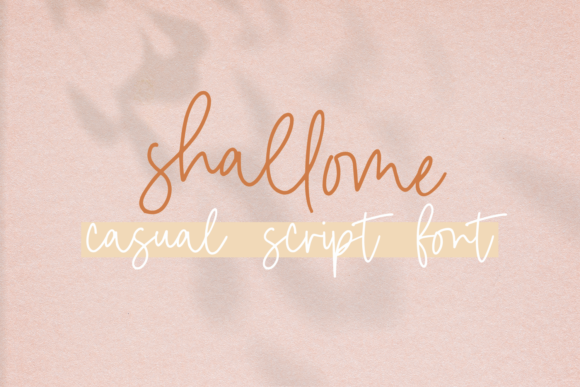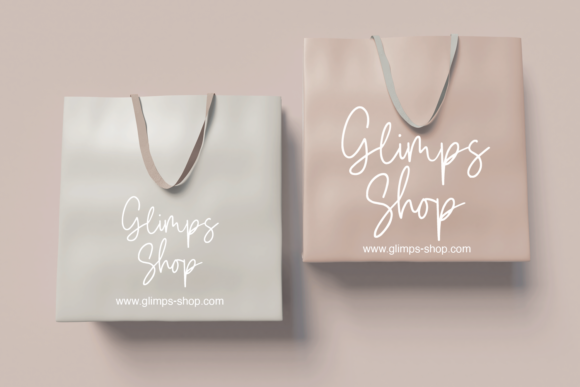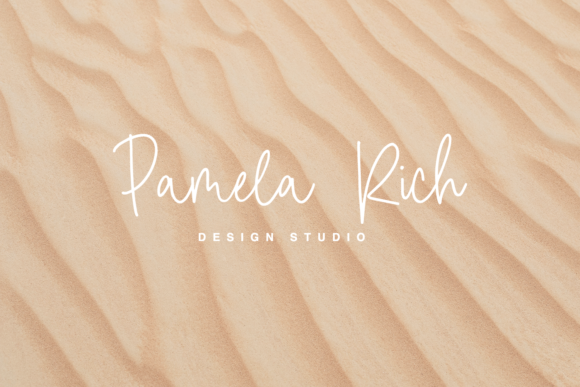
Introduction to Shellome Font Font
Fonts play a crucial role in design, and the Shellome Font font is a typeface that brings both character and versatility to any project. Whether you’re working on a branding project, a website, or a print design, the Shellome Font font offers a unique style that can elevate your work.
Shellome is a fresh, handmade handwritten font that embodies elegance and authenticity in every letter.
Itβs perfect for wedding designs, invitations, personal projects, business cards, marketing materials, and many other crafty ideas .
Key Features of Shellome Font Font
Why Choose Shellome Font Font?
The Shellome Font font is more than just a typeface β it’s a design tool that helps you communicate your message with style and clarity. Its unique character set and versatile design make it suitable for a wide range of applications, from elegant invitations to bold headlines.
With its carefully crafted letterforms and balanced proportions, the Shellome Font font ensures readability and visual appeal across all mediums.
What makes Shellome Font font special?
The Shellome Font font stands out with its unique design, exceptional readability, and versatility across various design applications.